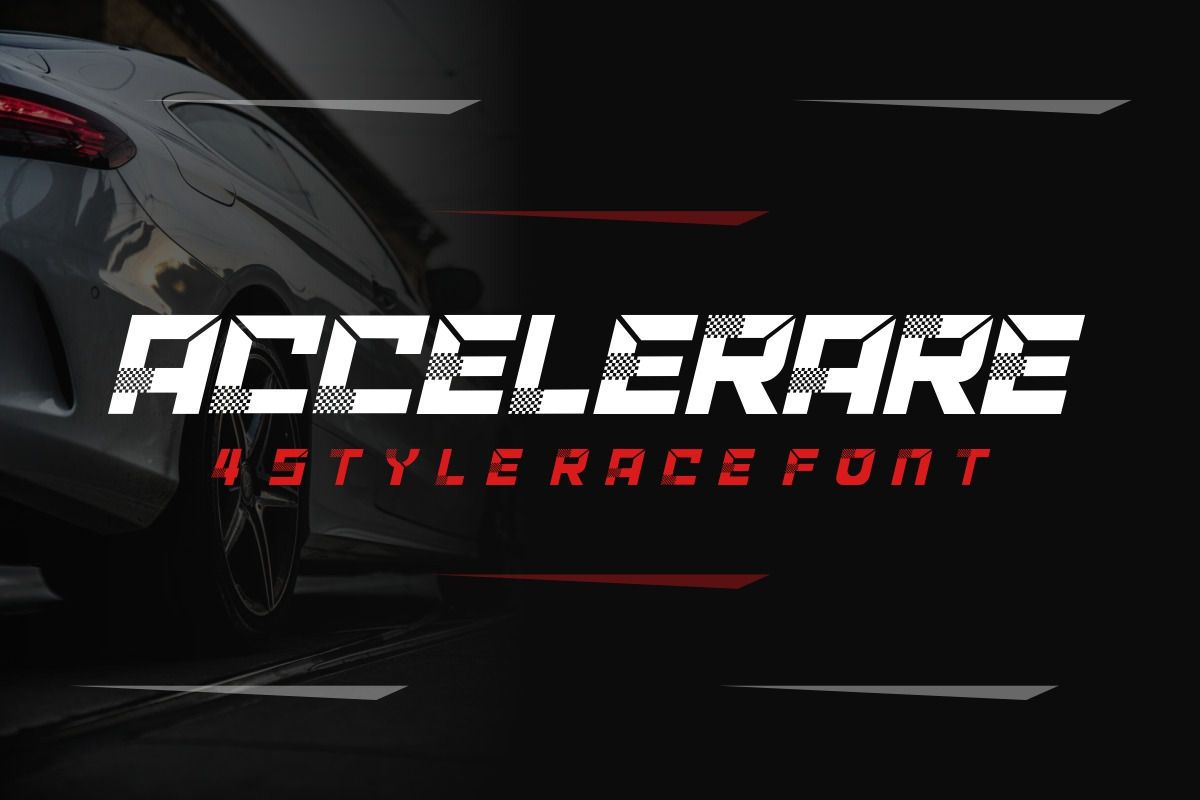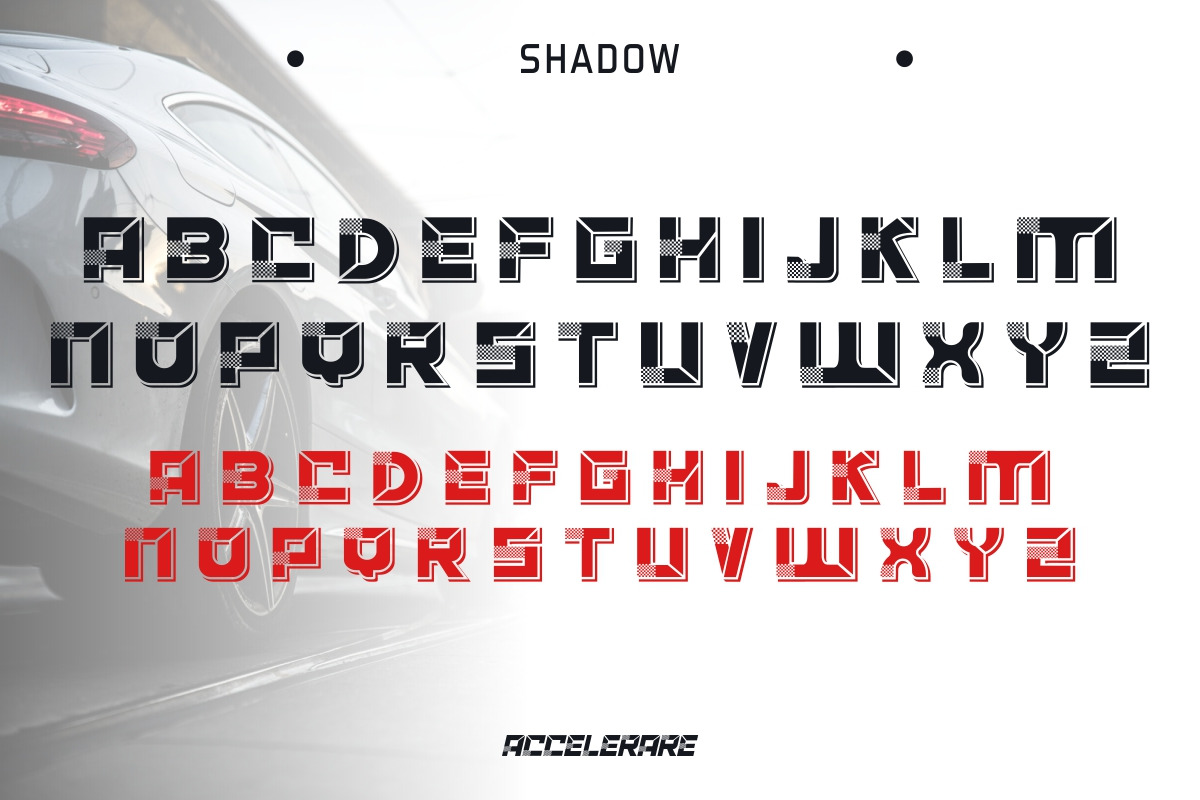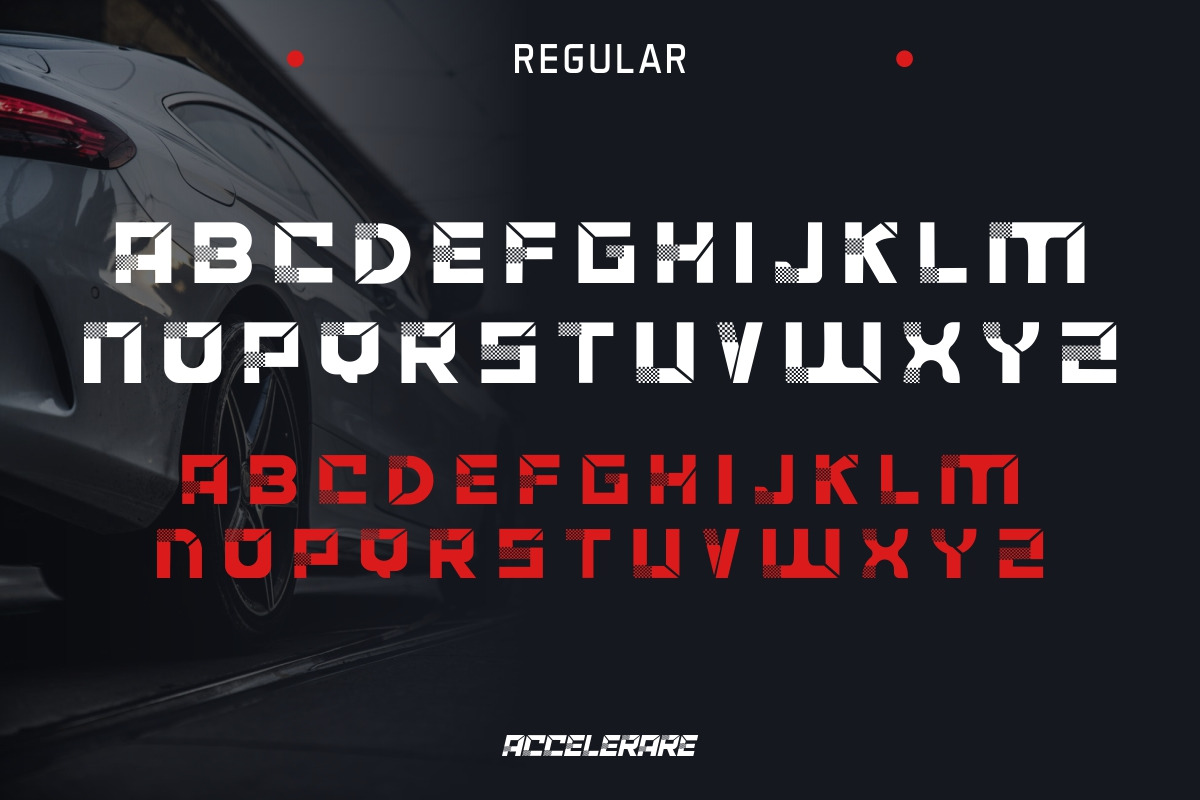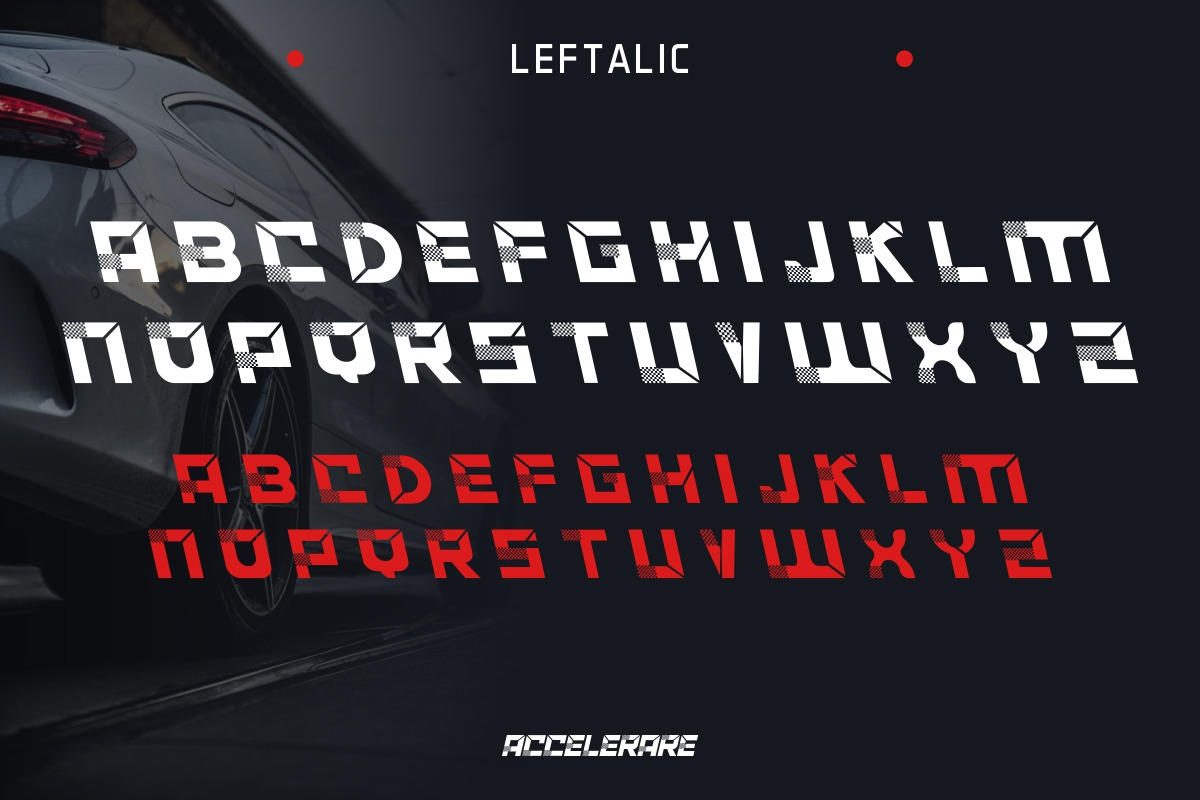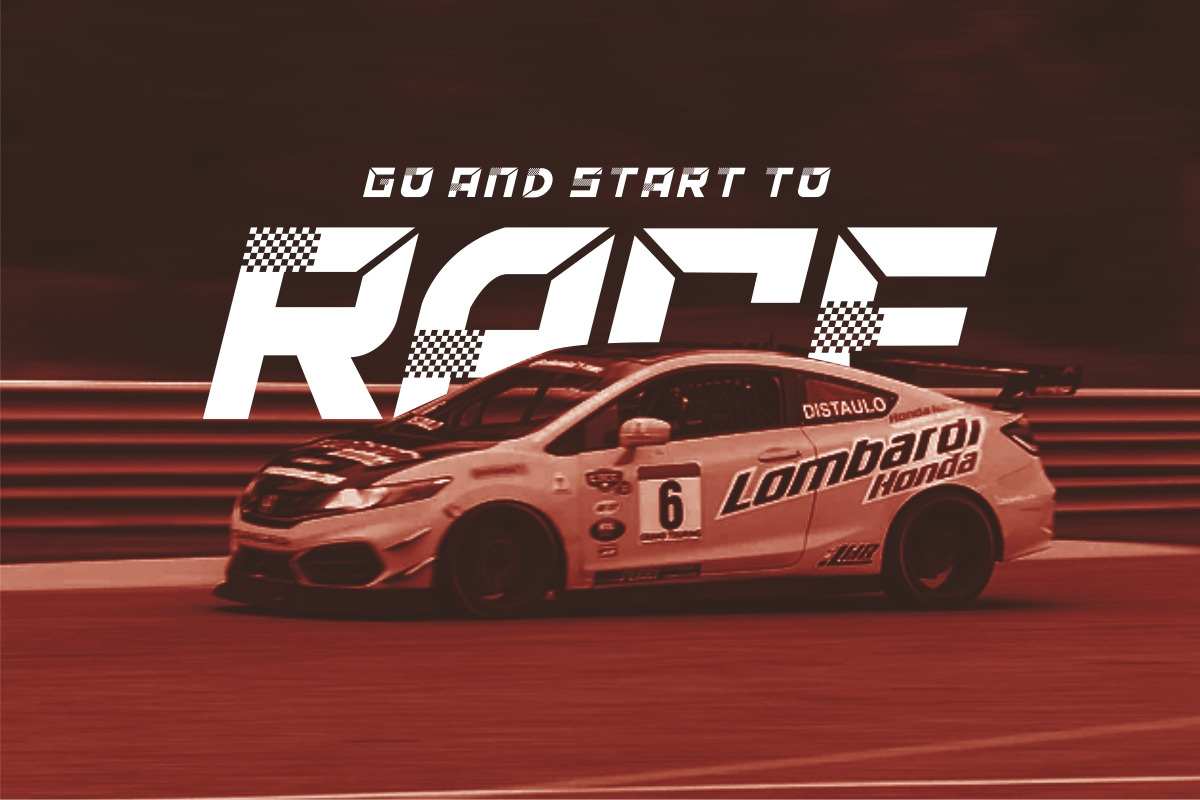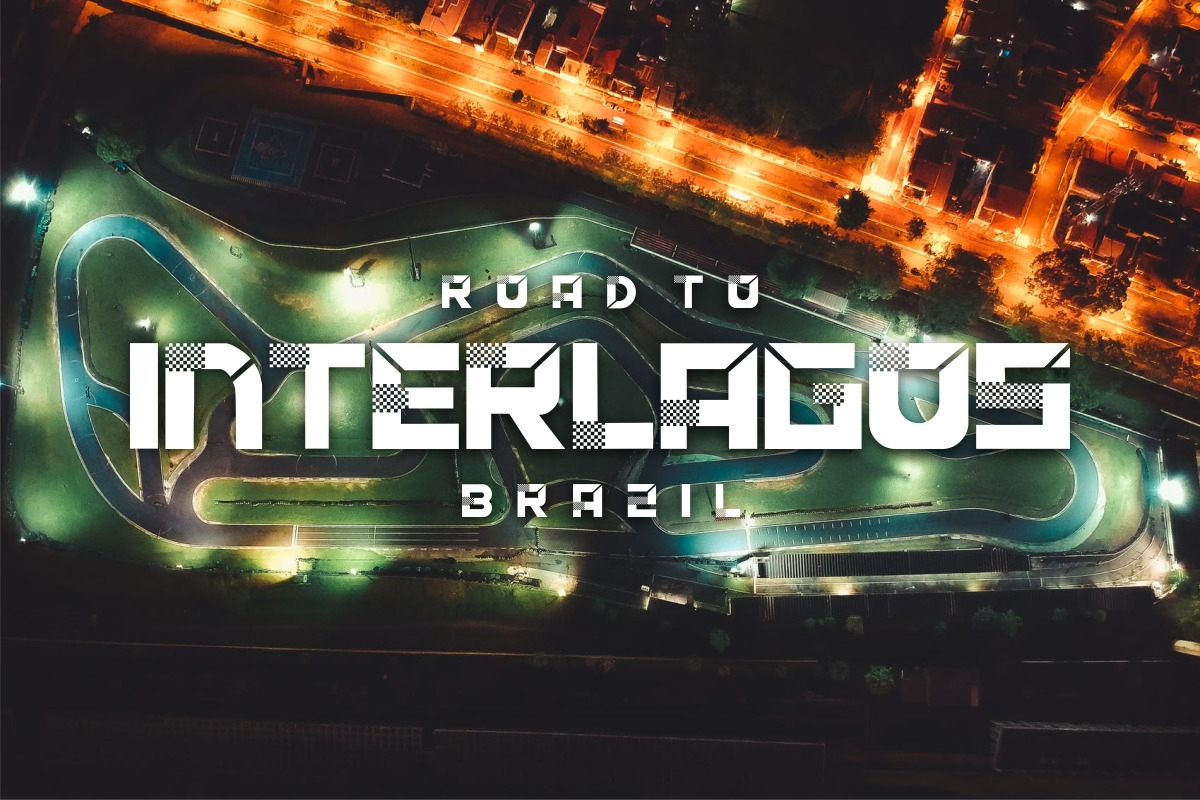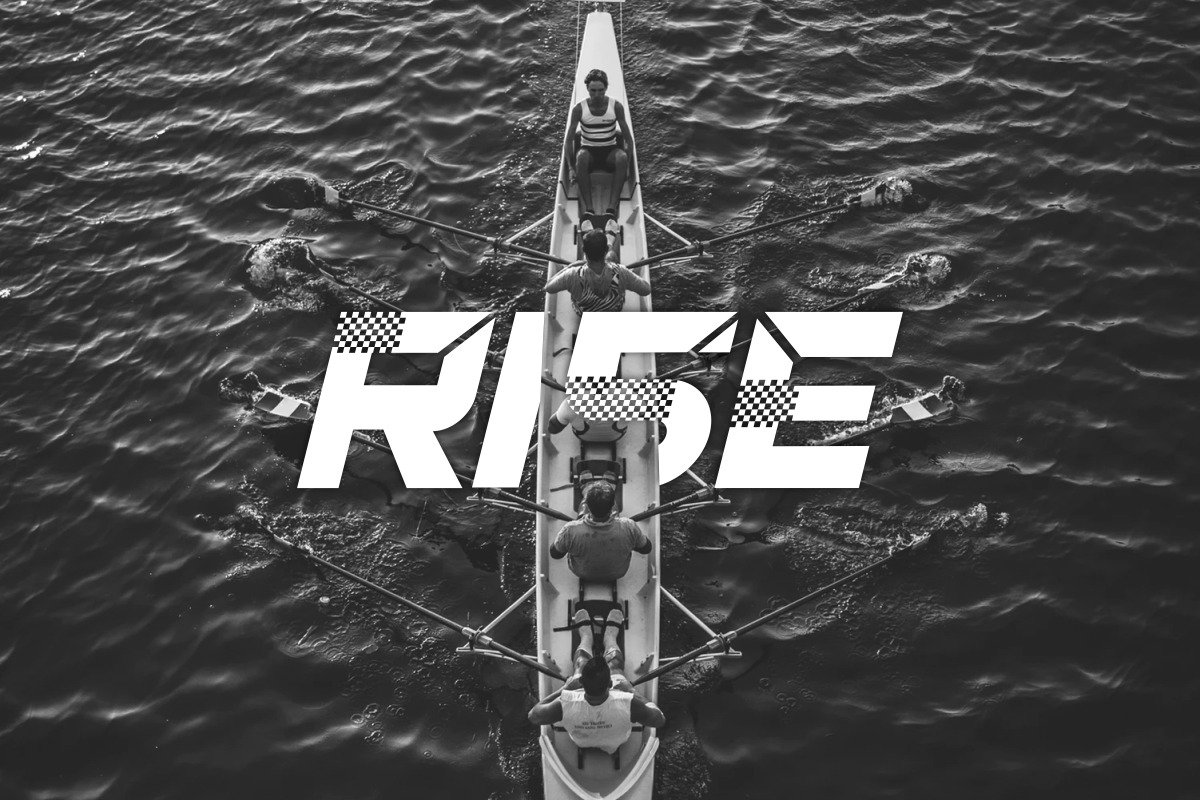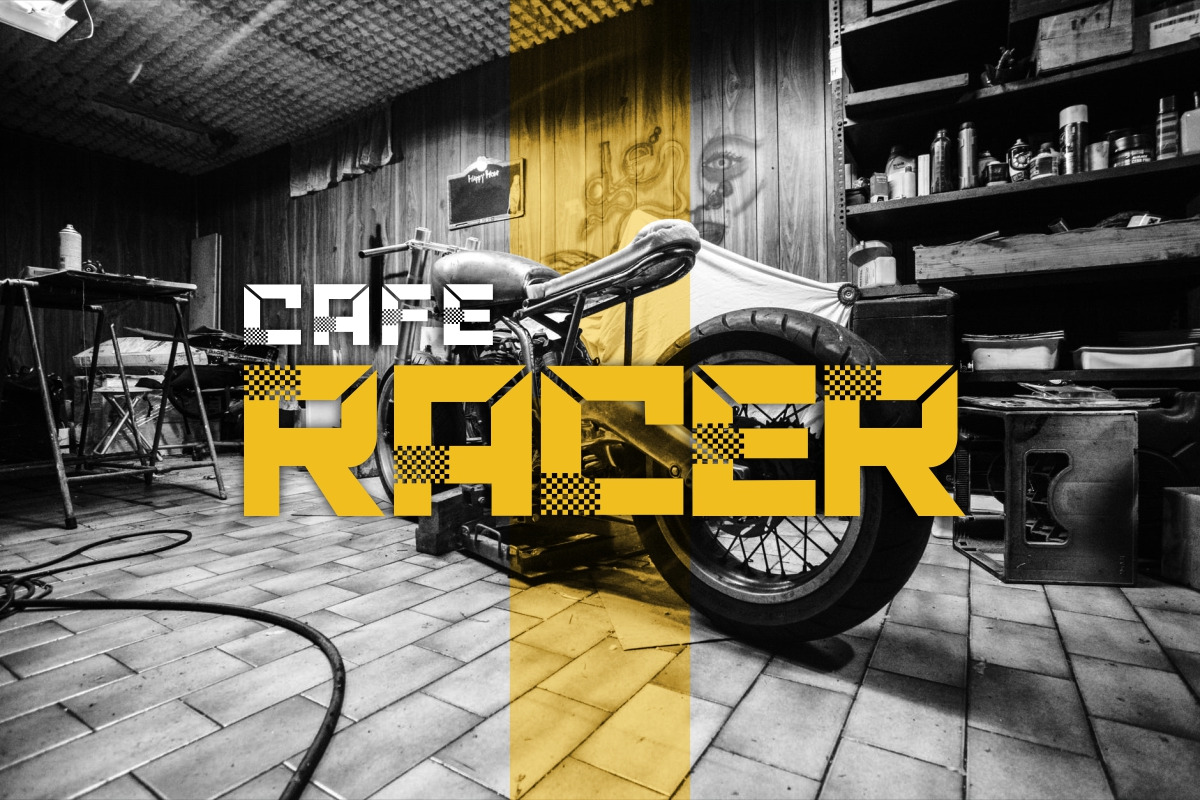
Accelerare Font Racing Speed
Hi Everyone! Introducing our newest font : ACCELERARE ! This is a new modern “racing speed car motor theme” sans serif display font.
ACCELERARE is a sophisticated cool font which will be perfect for branding, logo, sticker, decal, signage, flyer, brochure etc. There are many industries that is suitable for this font : car, racing, automotive, tournament, cup, futuristic startup, etc